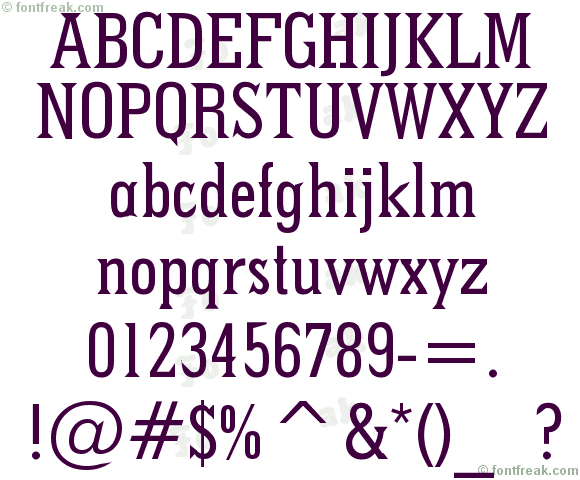
Pointed
About Pointed
Pointed, designed by Andy Krahling, is a striking display font that falls under the decorative category. This font captivates with its unique pointed serifs and a bold, geometric structure that creates an eye-catching visual appeal. The stroke weight is consistent, with a moderate contrast that enhances its readability, while the spacing is well-balanced, ensuring that each character stands out without feeling overcrowded. The pointed ends of the letters add a touch of sophistication and modernity, making it a versatile choice for various design projects.
The Pointed font is particularly well-suited for use in wedding invitations, where its elegant style can convey a sense of celebration and warmth. It also shines in movie posters, where its distinctive characteristics can draw attention and evoke curiosity. Additionally, restaurant menus can benefit from the font's unique flair, making dishes appear more enticing to patrons. Graphic designers and content creators will appreciate its potential for branding projects, especially when aiming to create a memorable identity for a small business.
What sets the Pointed font apart is its ability to balance artistic flair with practical usability. Its unique design elements ensure that it stands out while remaining versatile enough to adapt to various contexts. Whether you're crafting a stunning invitation or a bold promotional piece, the Pointed font free download is an excellent addition to any designer's toolkit, ensuring your projects make a lasting impression.